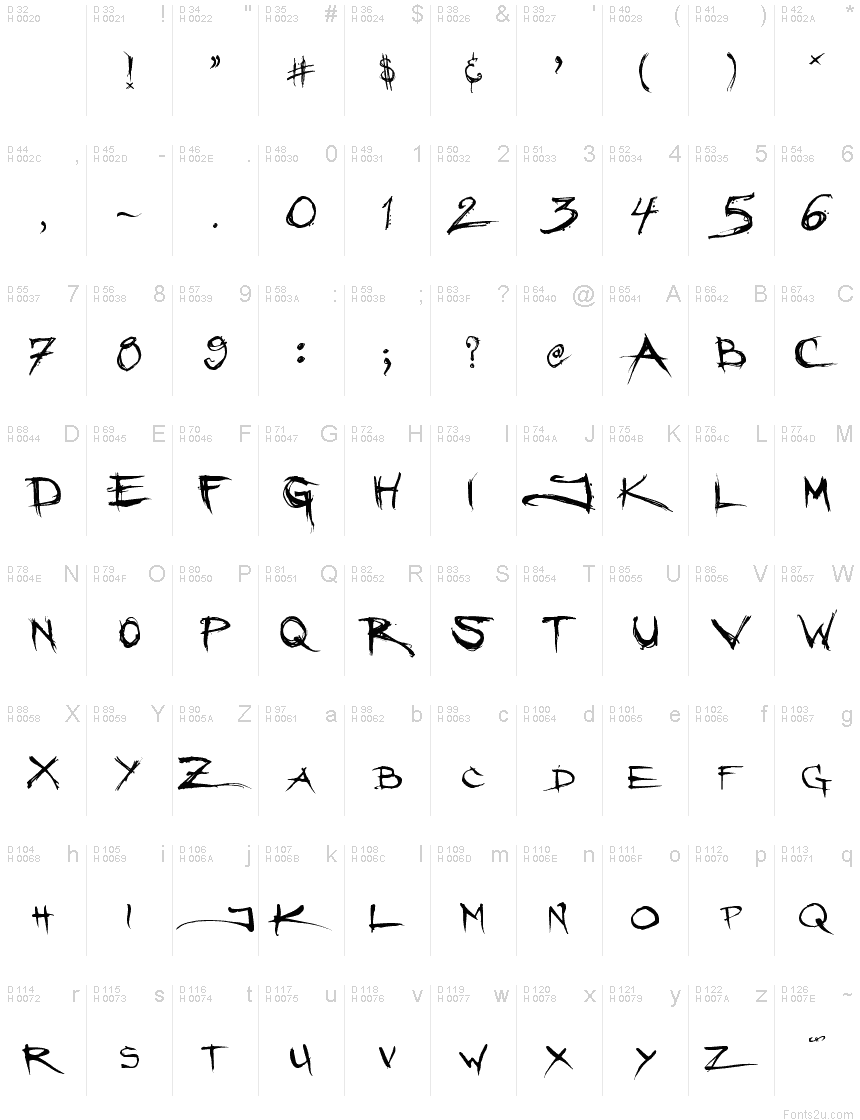
Angryblue
Angryblue font by Angryblue.com is a free scary display typeface that looks like it was ripped straight from a grime-covered gig poster. The letters slash across the line with jagged, splintered strokes and inky blots, like frantic marker tags on a concrete wall. It feels raw, loud, and just a bit unhinged-great when you want your title to look scratched in a hurry rather than politely typeset.
Using Angryblue, you can push horror movie posters, metal or punk band logos, Halloween flyers, game titles, book covers, and edgy apparel graphics into full-on chaos mode. This free font thrives at large sizes where its rough edges and splatters stay sharp and aggressive. Pair it with a clean, narrow sans serif for small supporting text to keep your layouts wild but still readable.